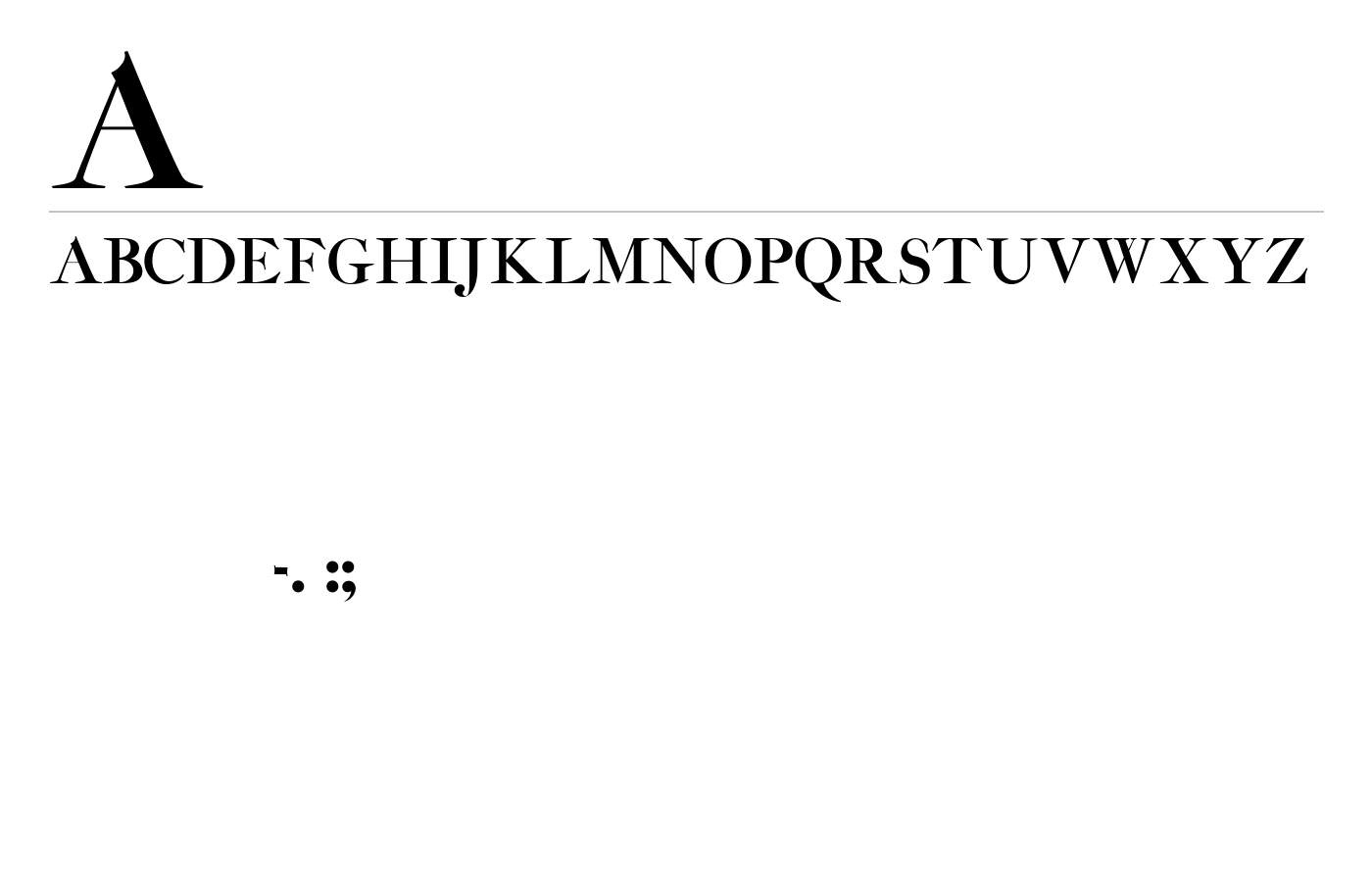
Amarfil is an elegant serif typeface with a classic, refined feel characterized by high contrast between thick and thin strokes and delicate, tapered serifs. Its thin, sophisticated letterforms, notable for unique details like curved tails and sharp terminals, make it ideal for luxury branding, editorial headlines, and formal invitations where a touch of timeless sophistication is desired. This font’s graceful style brings a sense of prestige and tradition to any design, perfect for projects requiring a polished and upscale aesthetic.
Amarfil Font
About Amarfil Font